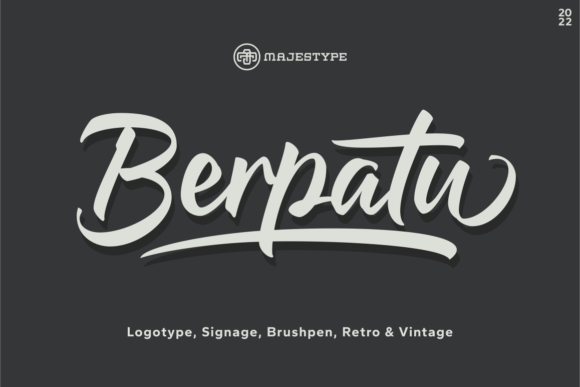
Unleash the artistry of Berpatu, a captivating script font that exudes the timeless charm of retro and vintage designs. Inspired by the iconic signage of shop windows and billboards that grace city streets, Berpatu is a brush lettering font meticulously crafted with a brush pen, infusing your designs with a unique, nostalgic flair.
Journey back in time as you explore the depths of Berpatu's characters, each stroke a testament to the enduring allure of bygone eras. Its effortlessly cool vibe makes it the perfect choice for those seeking to add a touch of history and character to their projects. Whether you're designing logos, posters, branding, or social media graphics, Berpatu will elevate your creations with its distinctive personality.
With its ability to evoke a sense of nostalgia and authenticity, Berpatu is the ideal font for capturing the essence of vintage and retro aesthetics. Its versatile nature allows it to seamlessly adapt to various design styles, from classic and elegant to edgy and contemporary. Unleash your creativity and let Berpatu transport your designs to a realm of timeless beauty and intrigue.
Immerse yourself in the world of Berpatu, where the past and present collide in perfect harmony. Its carefully crafted characters, reminiscent of hand-painted signs and weathered billboards, will add a touch of authenticity to your designs. Whether you're a seasoned designer or just starting out, Berpatu is the perfect tool to infuse your projects with a timeless, captivating appeal.